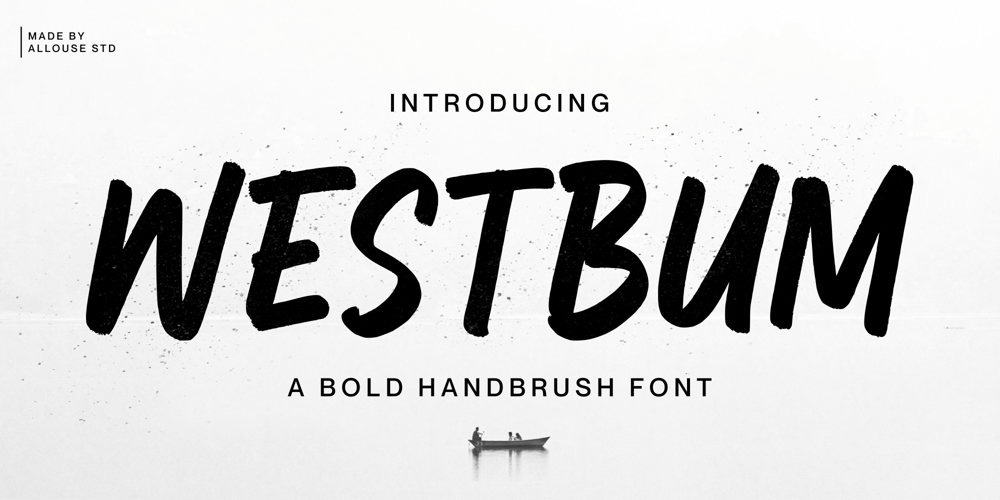
Westbum Font Family was designed by Fachrizal Yusuf and published by Allouse Studio. Westbum contains 1 styles and family package options. Proudly Presenting, Westbum A Bold Handbrush Font.Westbum is perfect for any titles, logo, product packaging, branding project, megazine, social media, wedding, or just used to express words above the background.Westbum also come with Multi-Lingual Support.Enjoy the font, feel free to comment or feedback, send me PM or email.